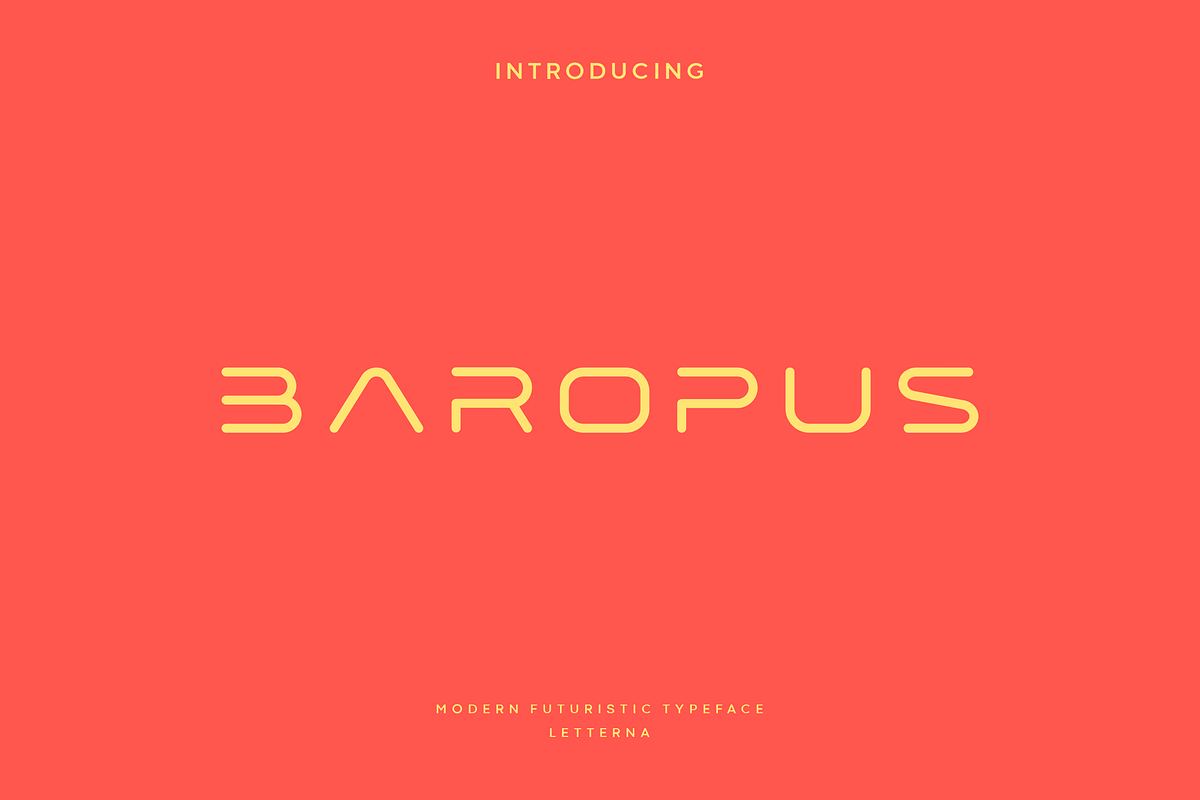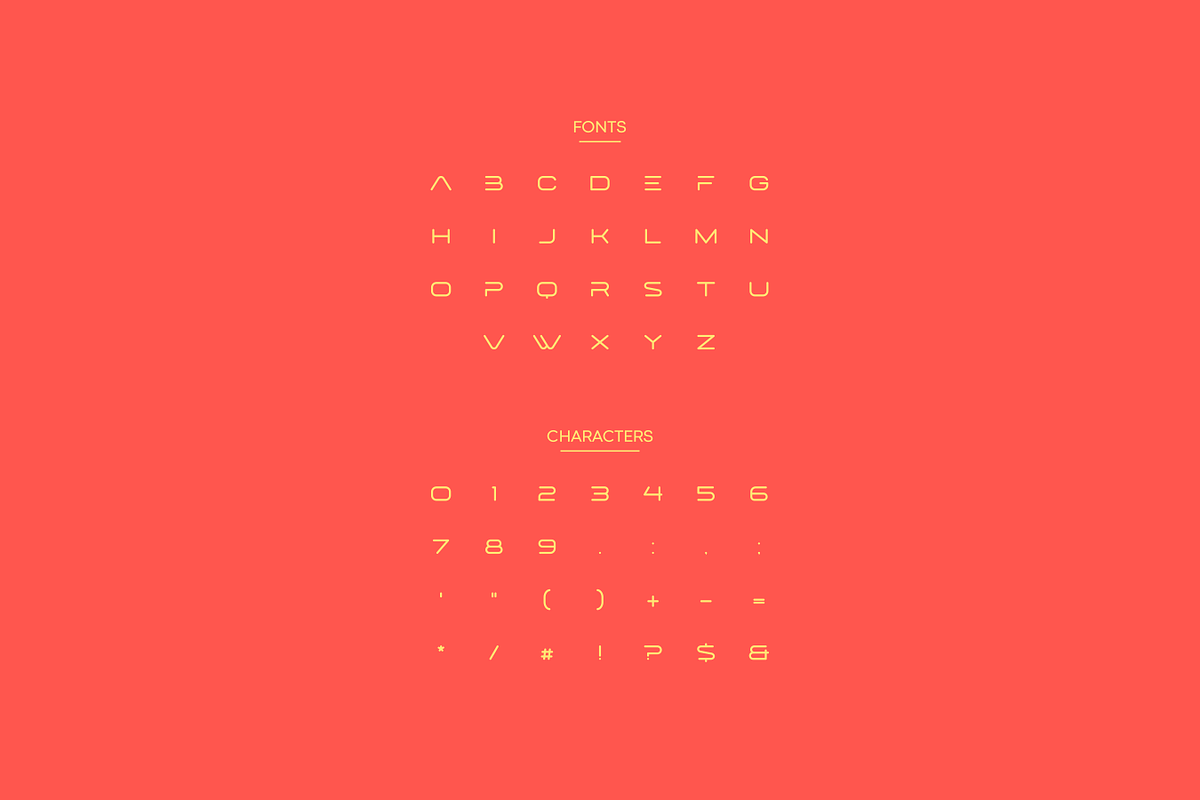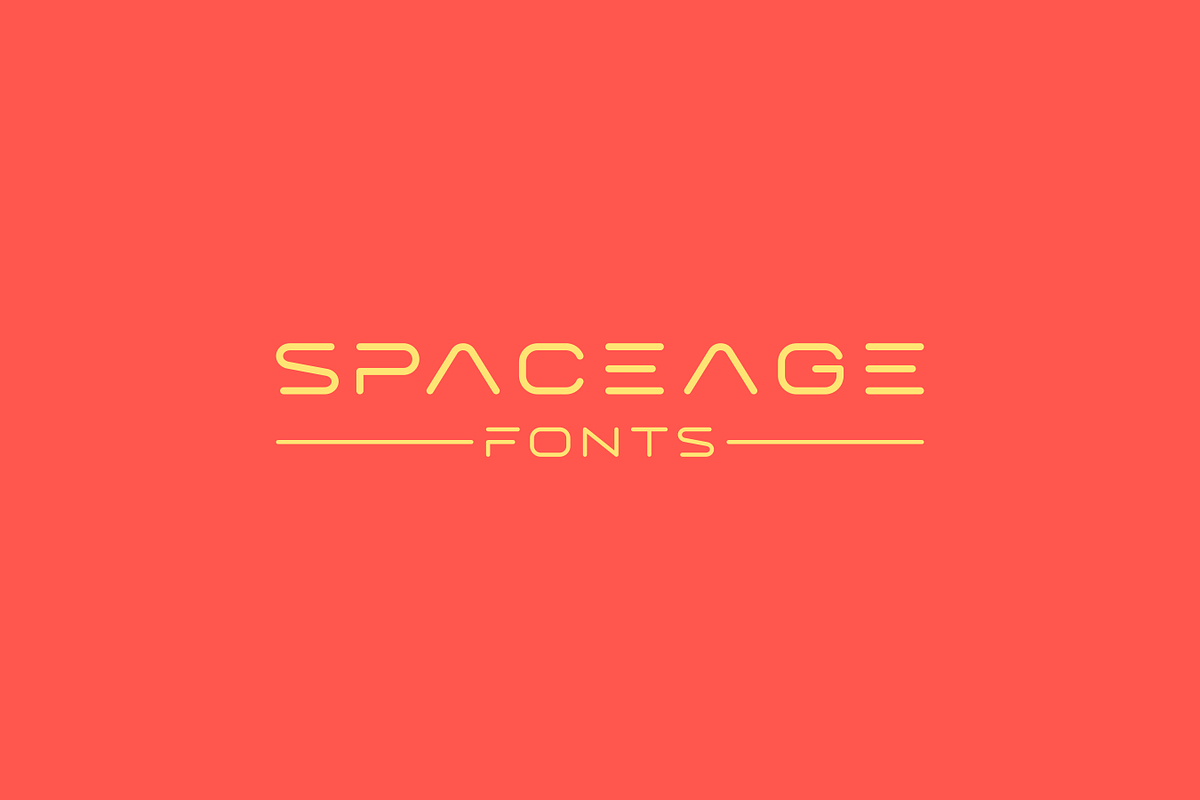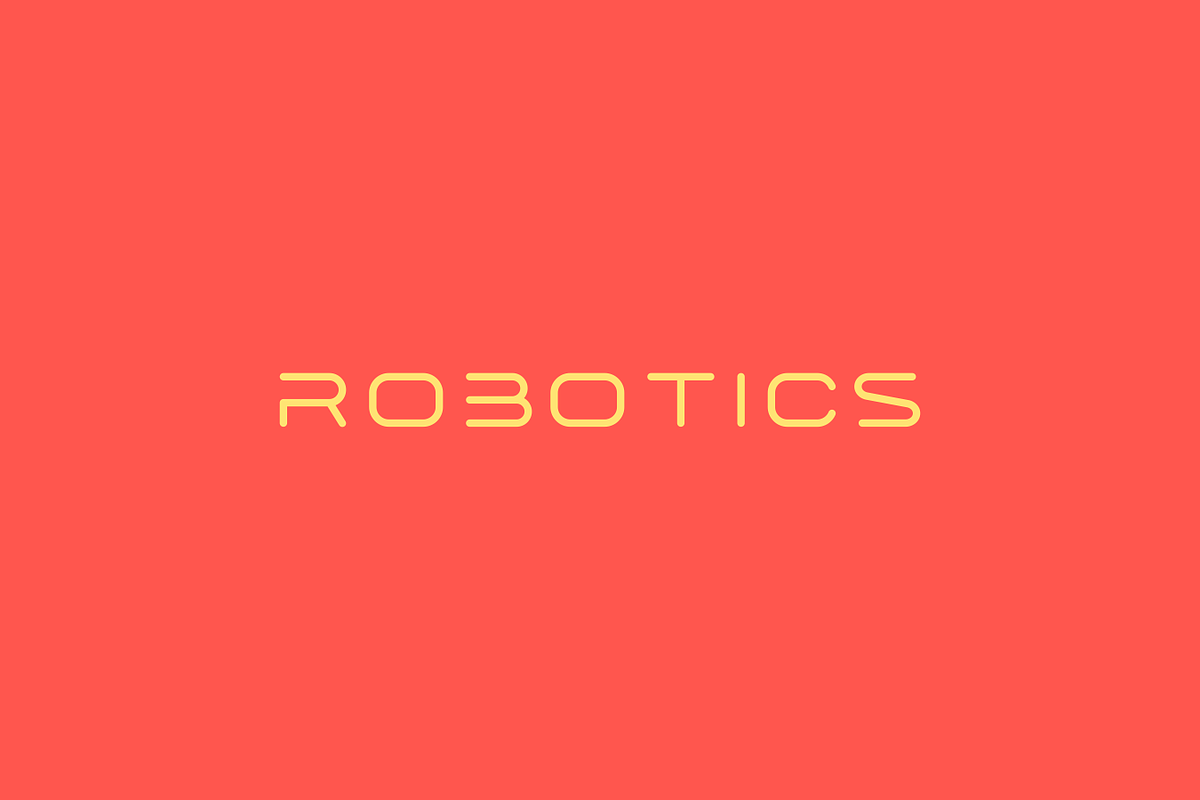
Baropus - Modern Futuristic Typeface
Baropus font creates futuristic hi-tech atmosphere and style. It’s good looking as header and as text both. Use it in your projects in such areas as robots & androids, hi-tech, future, virtual reality, space, sport and many others.